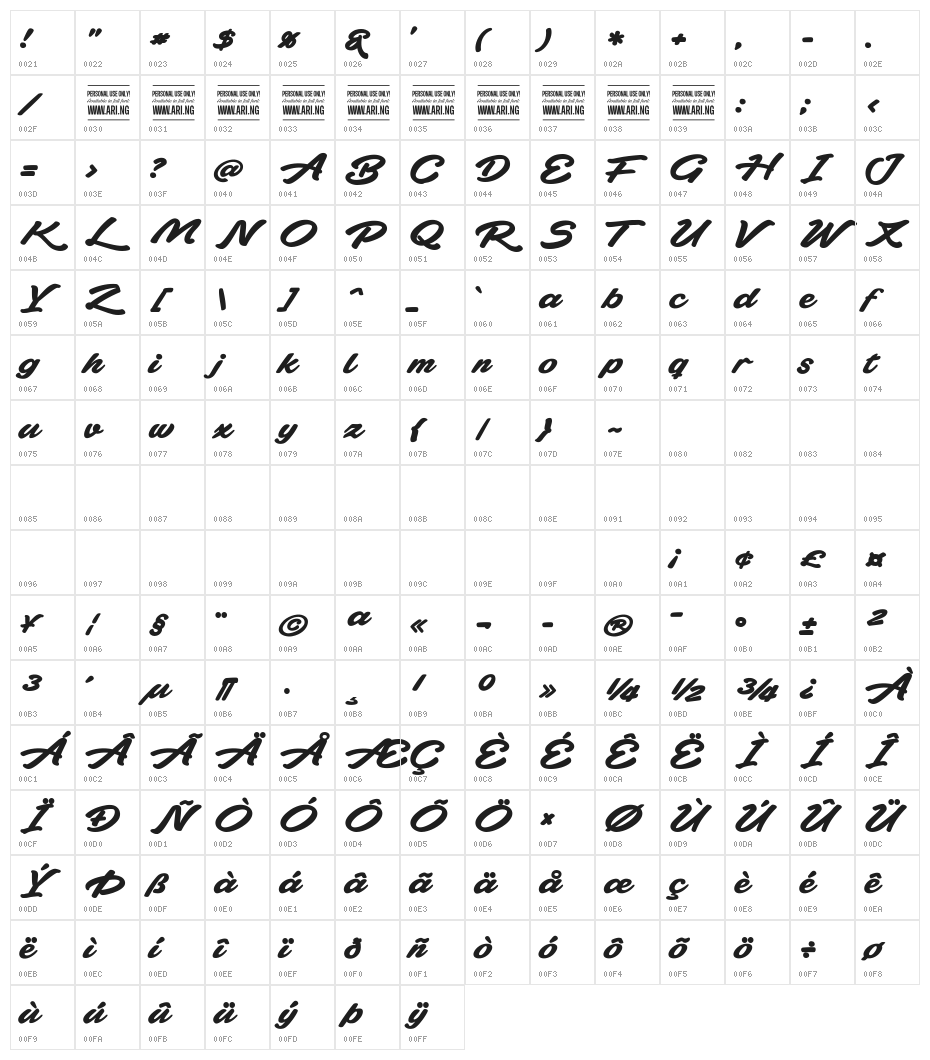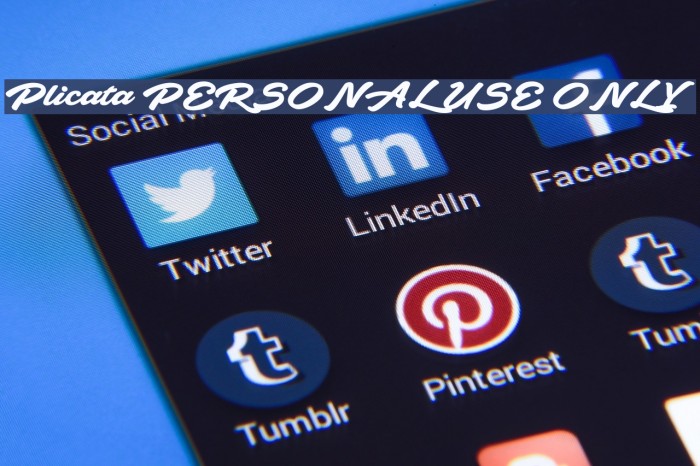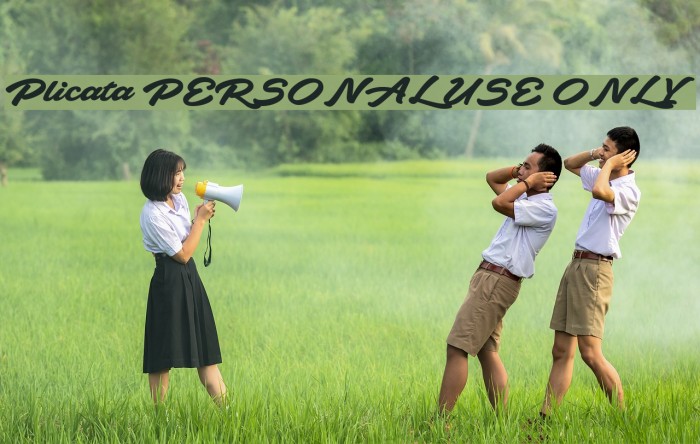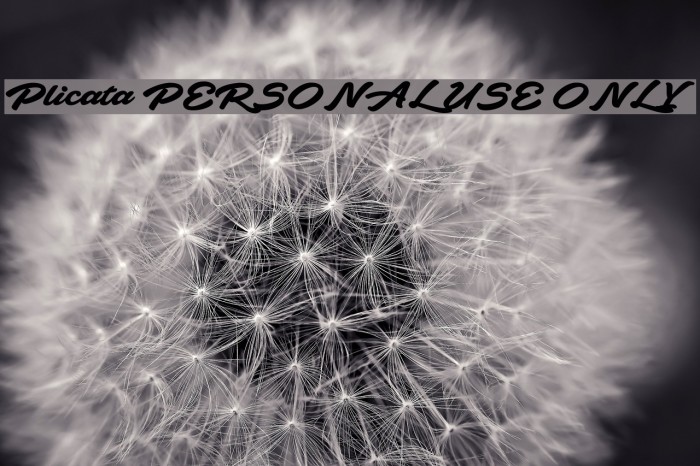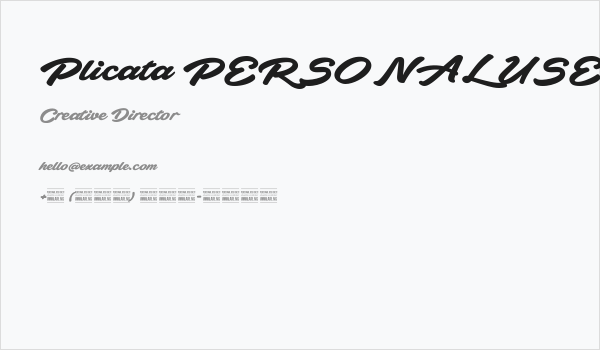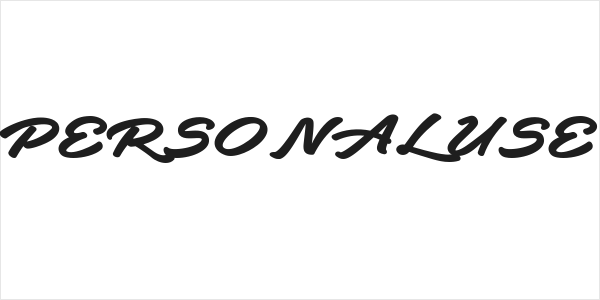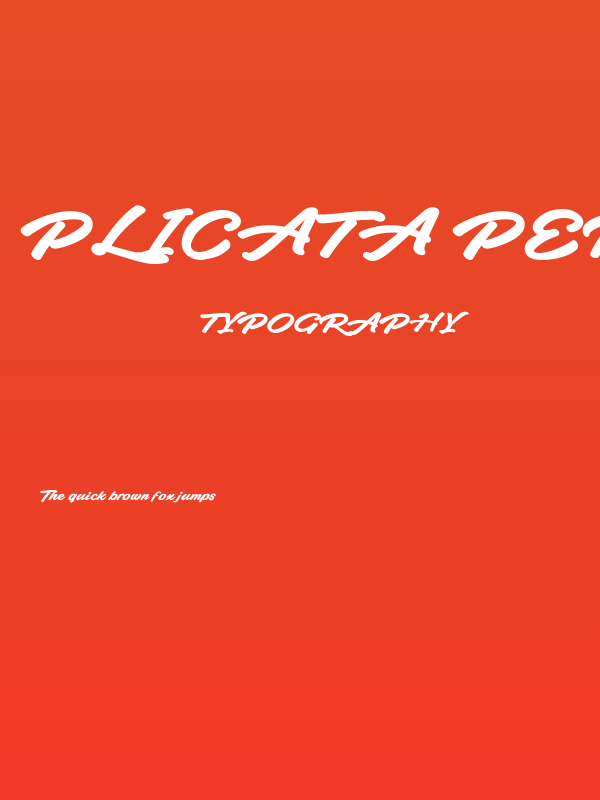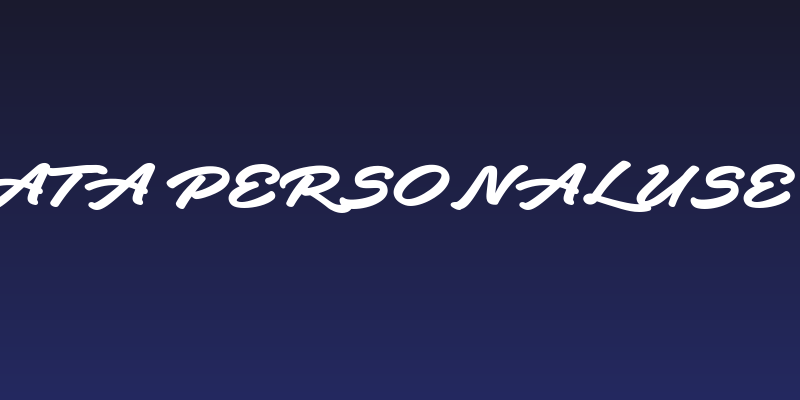
Plicata PERSONAL USE ONLY Font
Plicata PERSONAL USE ONLY Description
This font features a bold, cursive style with a strong emphasis on fluidity and elegance. The uppercase letters are slightly slanted, giving a dynamic and energetic feel, while the lowercase letters maintain a consistent flow, enhancing readability. The strokes are thick and uniform, contributing to a robust appearance. Special characters are designed to match the overall aesthetic, ensuring a cohesive look across all text elements. This font is ideal for creating impactful designs that require a touch of sophistication and flair.
| Use Case | Logos, Invitations, Headlines |
| Proposed Projects | Ideal for branding, invitations, and headlines where a bold, elegant statement is needed. |